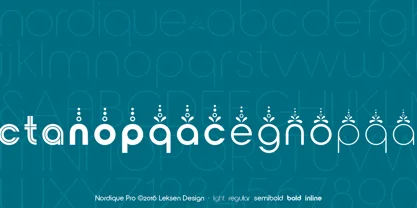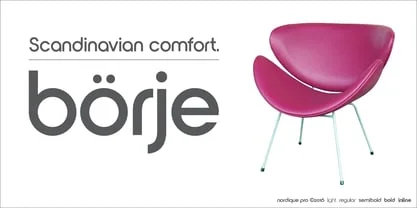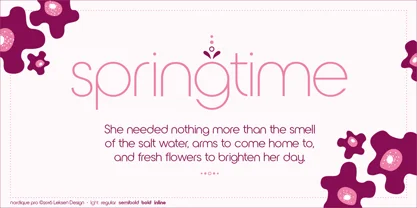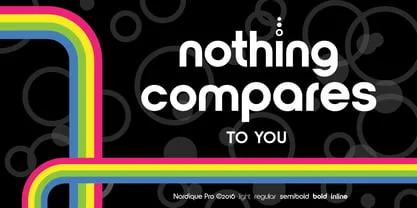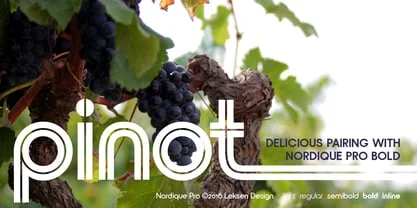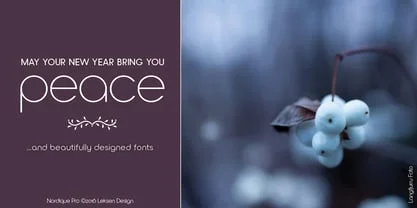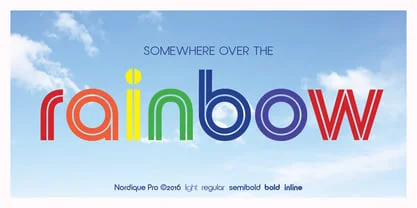
Nordique Pro Font
There is a particular satisfaction in finding a typeface that delivers optical balance across all weights without compromise. Nordique Pro consistently provides it. The typeface brings a versatile sensibility to a broad range of creative disciplines, with versatility across print and screen contexts that holds up whether the work is print-first or screen-first.
In practice, Nordique Pro proves particularly effective for logo design, advertising campaigns, packaging design, product labels, social media graphics. Designers reaching for it find that the type decisions feel resolved rather than laboured — a useful quality when client timelines are tight.
The range of applications extends to editorial layouts, signage systems, brand identity systems, annual reports. That breadth is deliberate: the proportions and spacing were stress-tested across a wide range of mock briefs before the typeface was finalised.
UX designers establishing typographic systems for digital products find Nordique Pro a reliable choice for projects that demand both personality and restraint. The design avoids the self-conscious quirkiness that dates quickly, settling instead for considered distinctiveness that holds up over time.